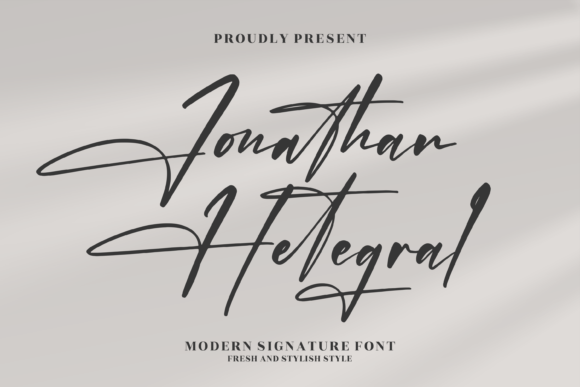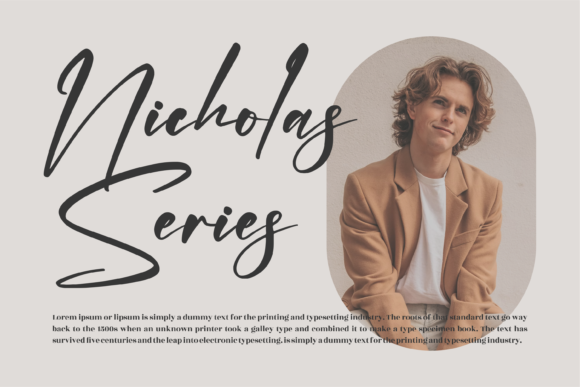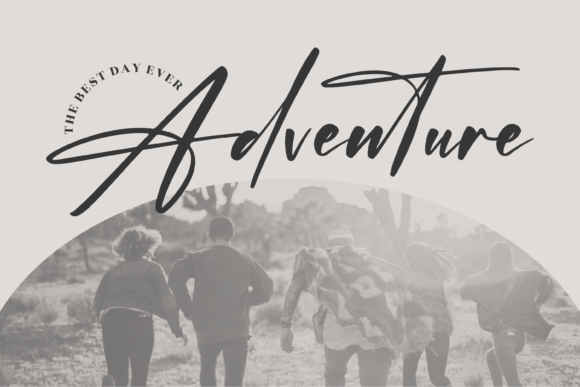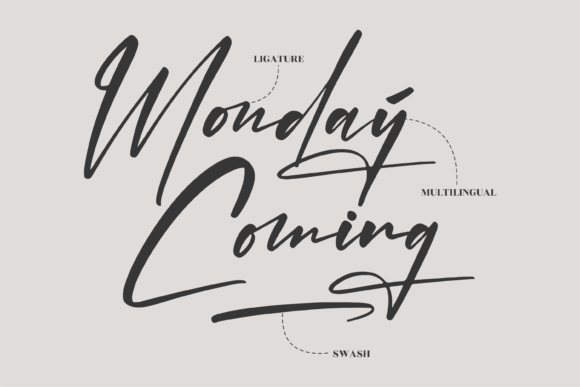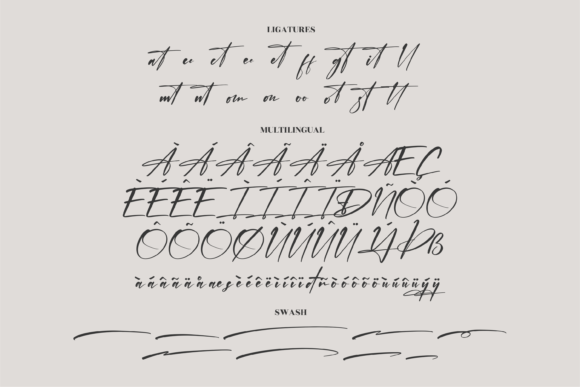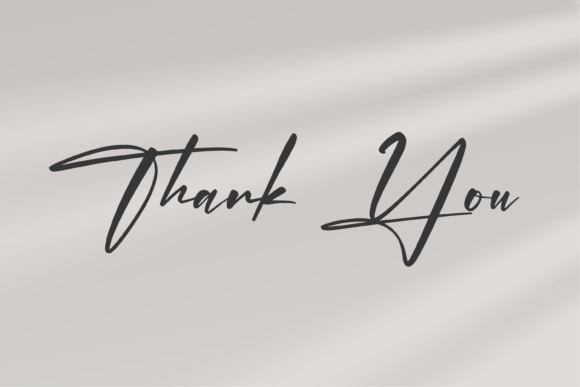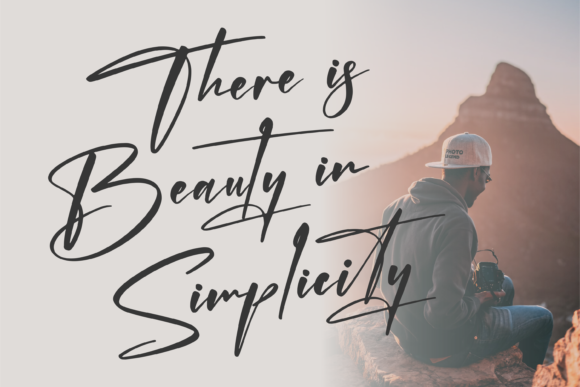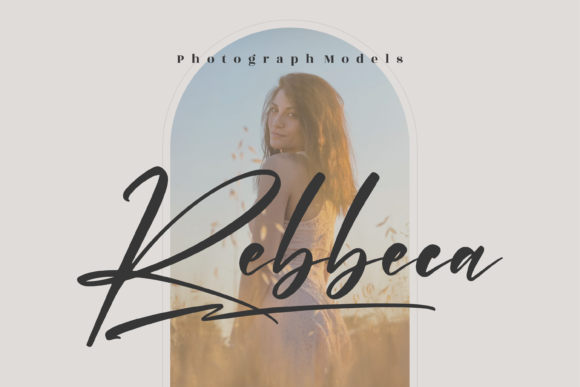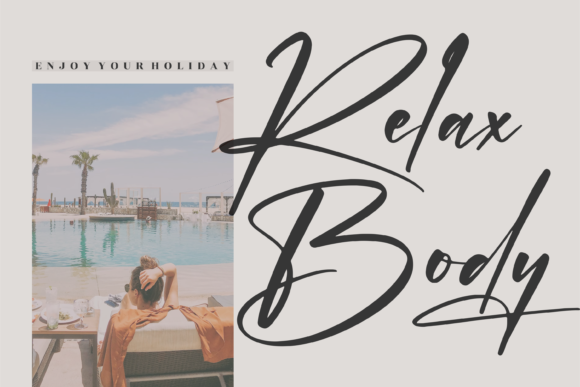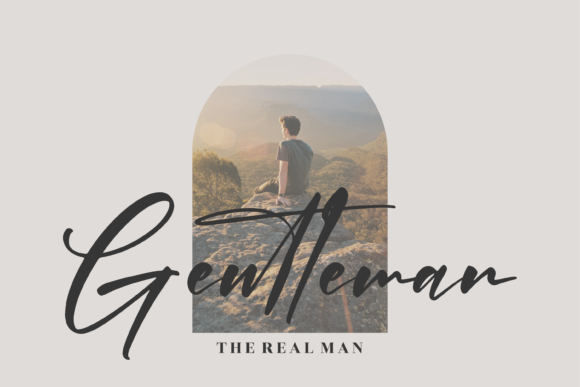
Jonathan Hetegral Font
About Jonathan Hetegral Font
Jonathan Hetegral is a beautiful and refined script font. It has a classy, elegant and modern look that can be used for logos, branding, invitations, stationery, wedding designs, social media posts, and much more!